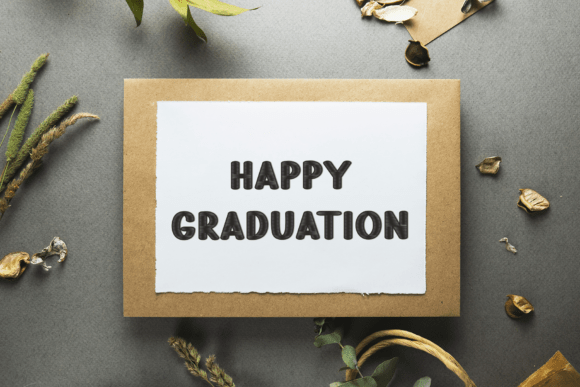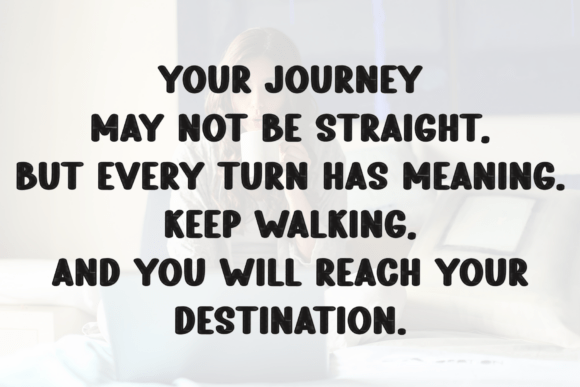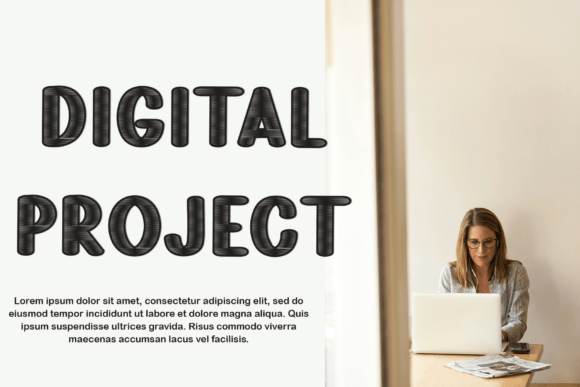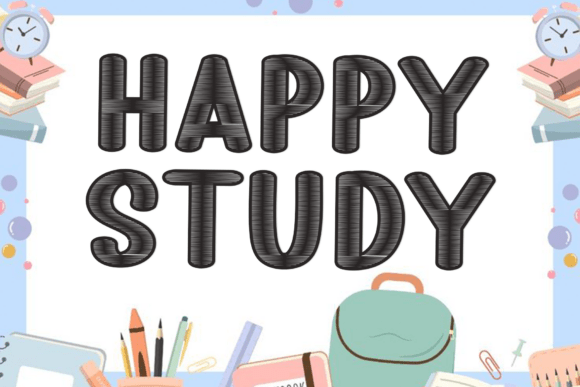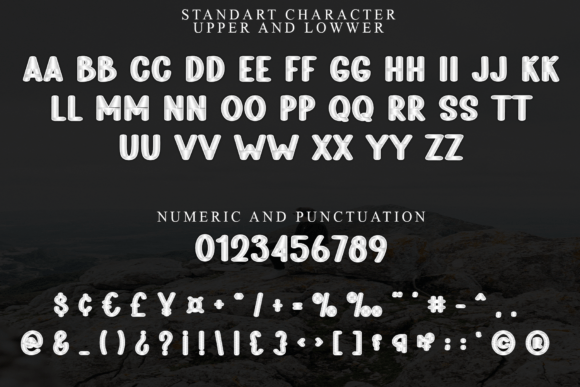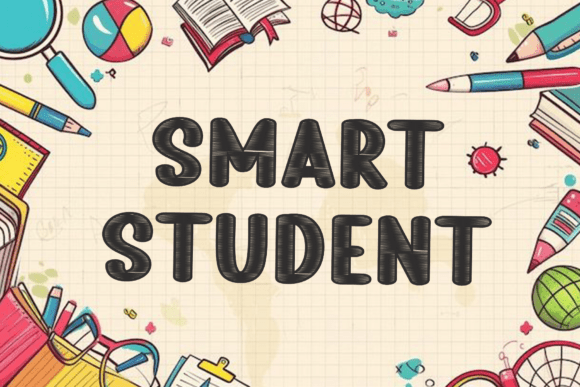
The Magic of Holiday Typography: Unwrapping the Enchantment of Instructor Font
As I sat amidst the twinkling lights and the scent of freshly baked cookies, I couldn’t help but feel the excitement of the holiday season. It’s a time when creativity knows no bounds, and the world is filled with the promise of joy and wonder. And what better way to capture that magic than with the perfect font? That’s where Instructor Font comes in – a delightful and whimsical typeface that embodies the spirit of the holidays.
Designed to add a touch of enchantment to your designs, Instructor Font is the perfect companion for greeting cards, gift tags, and holiday-themed projects. With its decorative elements and festive flair, this font brings a cheerful and nostalgic ambiance to your words. Whether you’re a seasoned designer or a holiday enthusiast, Instructor Font is sure to bring a smile to your face and a twinkle to your typography.
Instructor Font Key Features
- Font Family: Instructor is a sans-serif font family designed specifically for educational and instructional purposes.
- Unique Characteristics: Instructor features a clean and modern design with clear typography, making it easy to read and understand complex information.
Instructor Font Review
Overall, I think Instructor Font is a solid choice for educational and instructional materials, but it has its limitations.
- ✨ Highly legible: Instructor Font is designed to be clear and easy to read, even at small font sizes, making it perfect for digital displays and print materials.
- ✨ Friendly feel: The font has a warm and approachable feel that’s ideal for educational settings, making it easy to engage students.
- ✨ Versatile: Instructor Font comes in a range of weights and styles, making it easy to use in a variety of contexts.
- ⚠️ Limited expressiveness: Instructor Font is designed for clarity and readability, but it can feel a bit flat and unexpressive in certain contexts.
- ⚠️ Not ideal for creative writing: The font’s straightforward design makes it less suitable for creative writing and poetry.
- ⚠️ Limited support for some languages: Instructor Font may not support all languages or character sets, which can limit its use in certain contexts.
Overall, I think Instructor Font is a great choice for educational materials and instructional design, but it may not be the best fit for every project or context.
Tips for Getting the Most Out of Instructor Font
Use Instructor Font for headings and titles to create visual hierarchy and emphasis. Experiment with different font sizes and colors to create a unique look. Combine Instructor Font with other fonts to create a balanced and professional design.
Instructor Font is perfect for:
- Creating engaging headings and titles
- Designing professional-looking presentations and documents
- Adding a touch of sophistication to your designs
Alternatives to Instructor Font for Designers
Monserrat is a sans-serif font designed for digital interfaces. It’s a great alternative to Instructor Font when you need a modern, clean, and highly legible font. Montserrat is ideal for titles, headings, and body text in applications, websites, and mobile apps.
Montserrat is similar to Instructor Font in its geometric structure, but it has a more aggressive feel and a wider range of weights. Use Montserrat when you need a font that’s both modern and versatile.